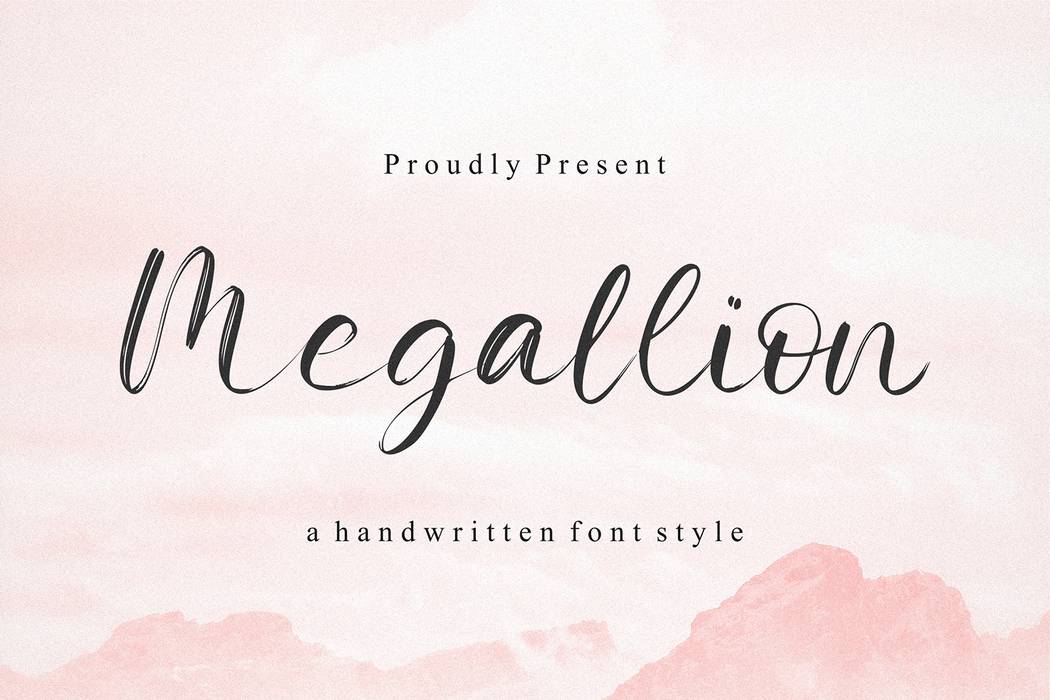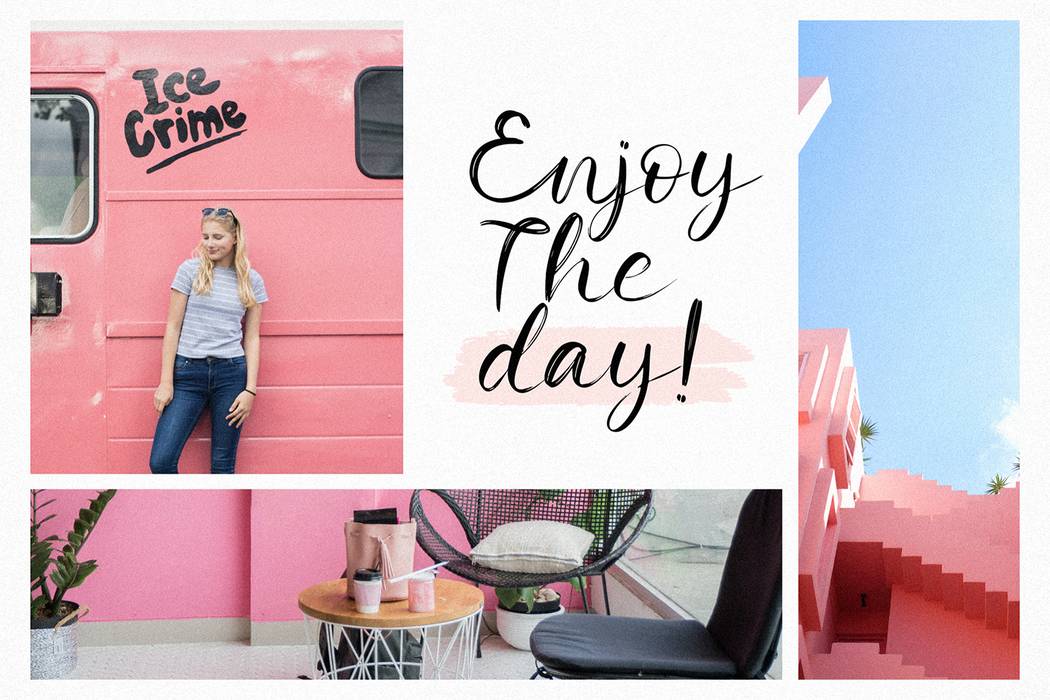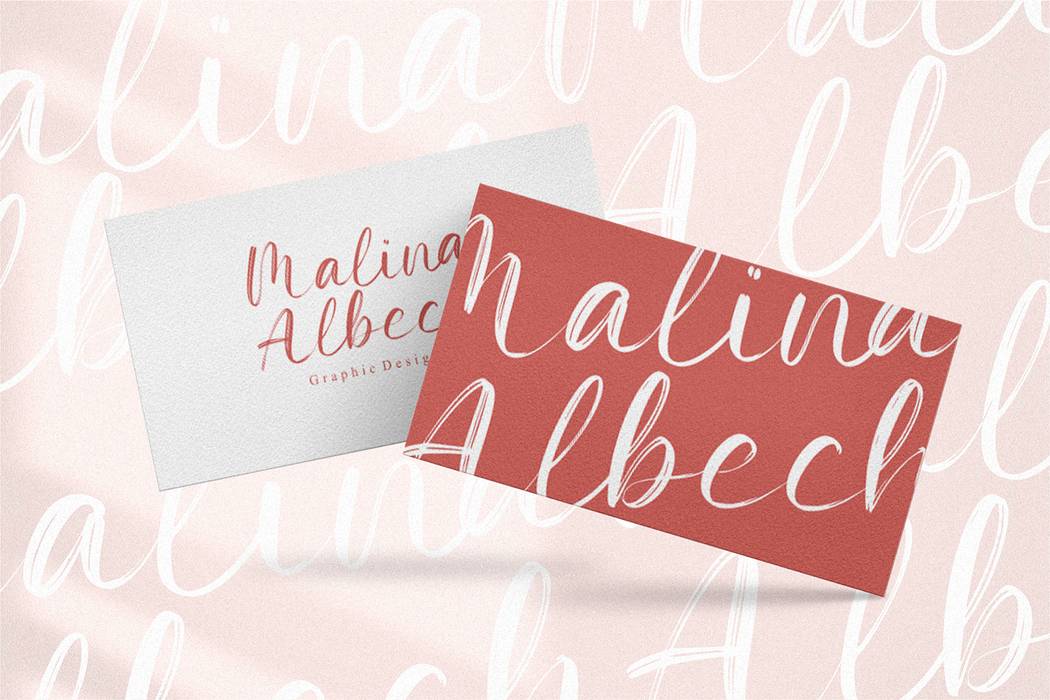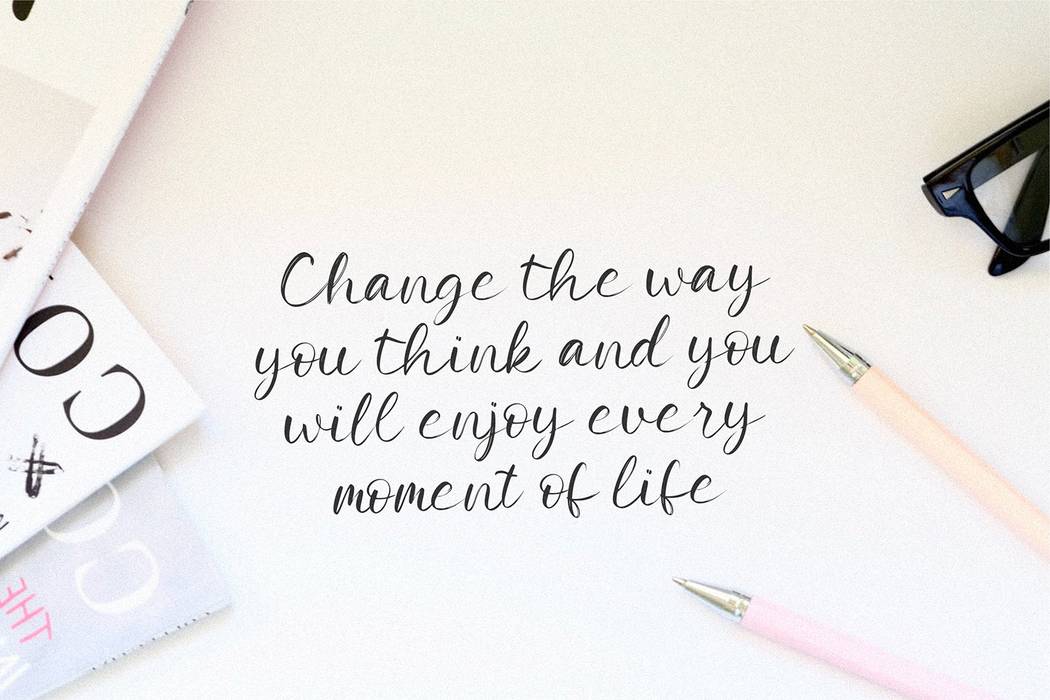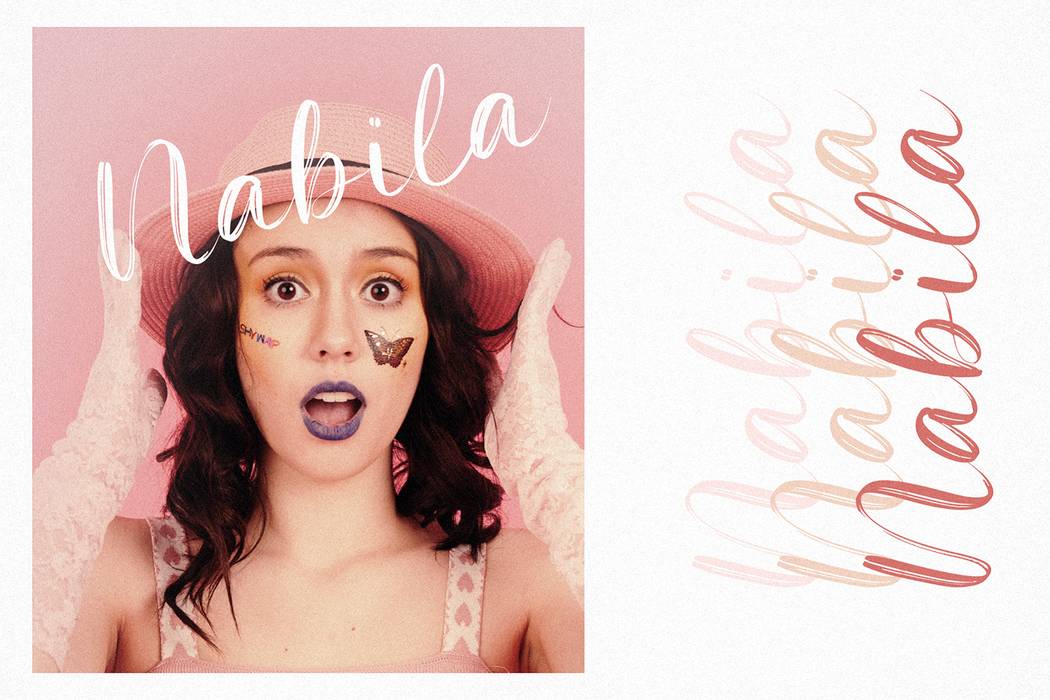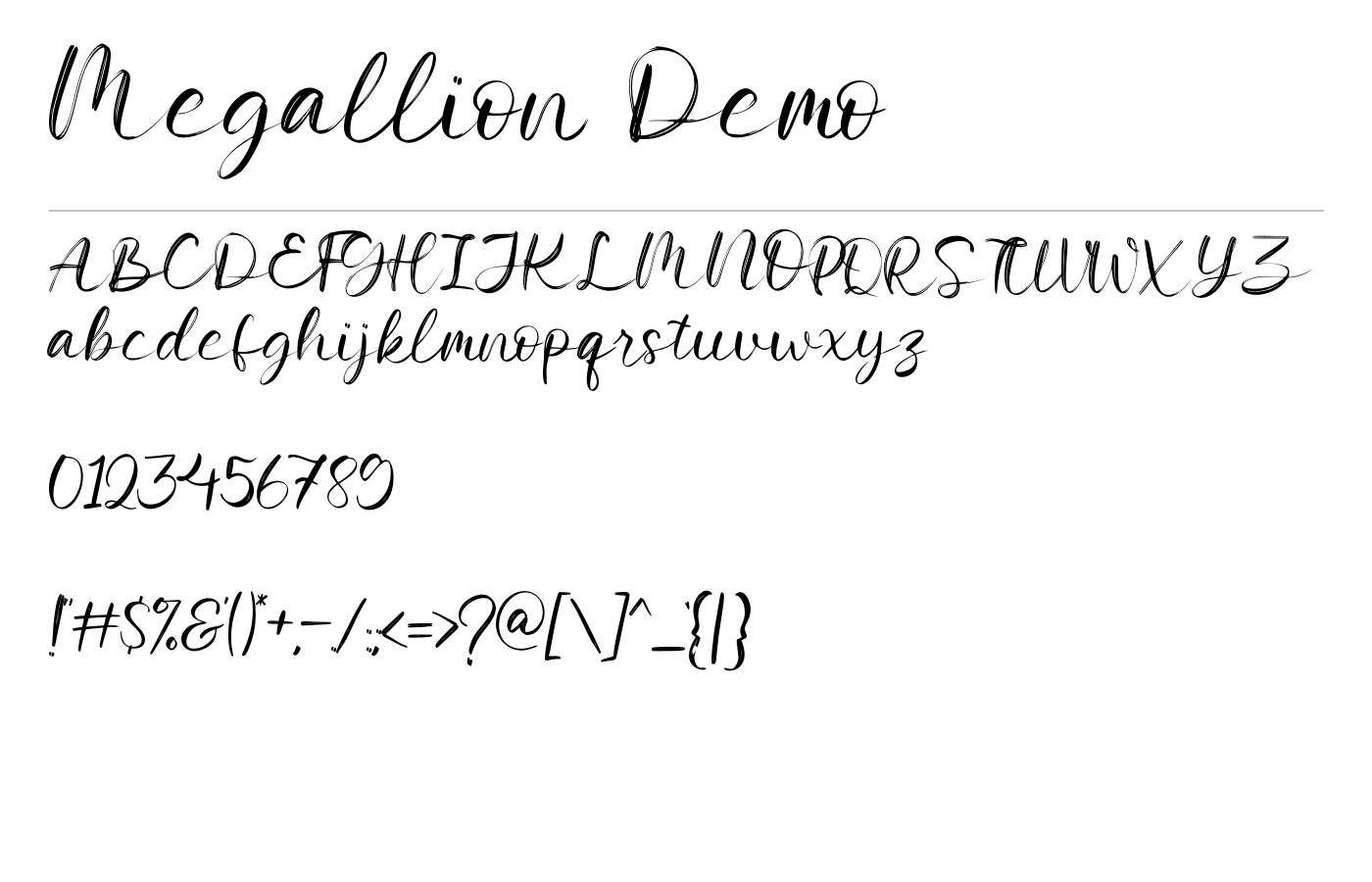
Megallion is an elegant and flowing script font that mimics natural handwriting with its thin, slightly irregular strokes and high contrast, creating a delicate and artistic feel. Its slender uppercase and lowercase letters, combined with unique flourishes and a casual yet refined rhythm, make it perfect for creative branding, invitations, and stylish editorial designs seeking a personal, sophisticated touch. This font works best in contexts where a graceful, modern handwritten look adds charm and personality without sacrificing readability.
Megallion Font
About Megallion Font